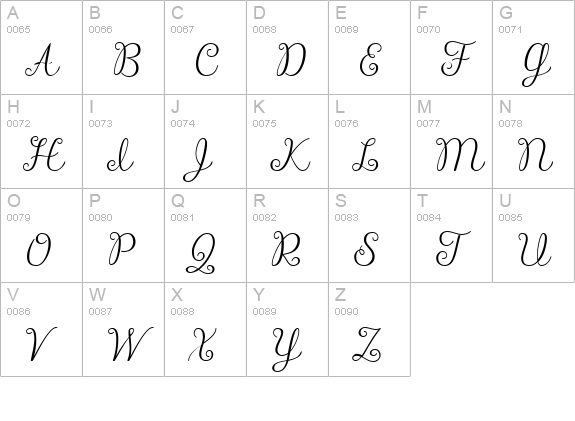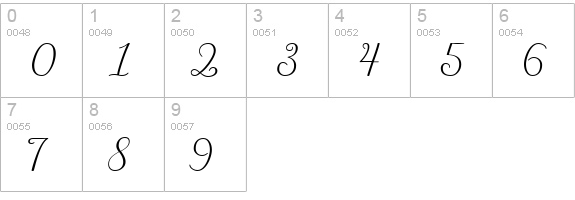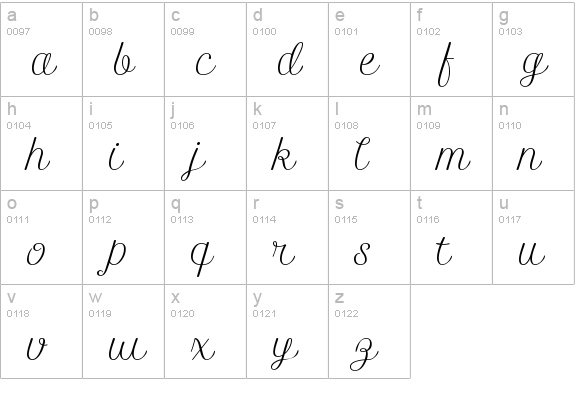
CK Holiday Spirit Font Details
The CK Holiday Spirit font is a delightful and festive typeface that perfectly captures the essence of the holiday season. With its whimsical and playful design, this font is sure to bring cheer to any project it is used in. The elegant swirls and decorative elements make it ideal for creating eye-catching designs for holiday cards, invitations, posters, and more. What's even better is that the CK Holiday Spirit font is available for free download at FontsMarket.com. Whether you're a designer looking to add a festive touch to your creations or simply want to spread some holiday cheer with your personal projects, this font is the perfect choice. Download it today and let your creativity shine with the CK Holiday Spirit font!